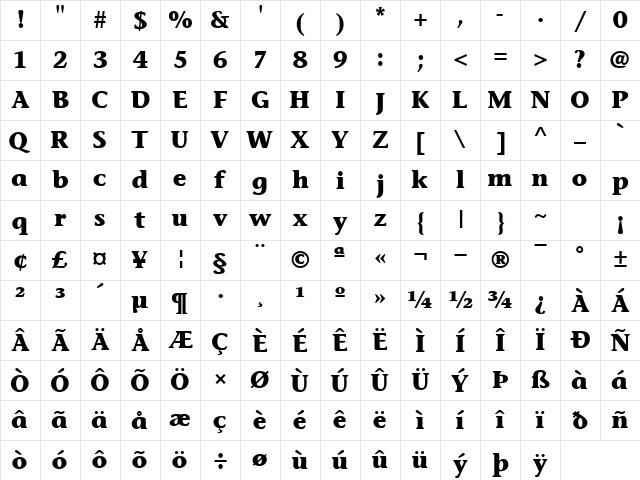
MesouranCasualBlackSSK Regular
Design Context for MesouranCasualBlackSSK
MesouranCasualBlackSSK is a composed and adaptable typeface that performs quietly and consistently across a wide range of design contexts.